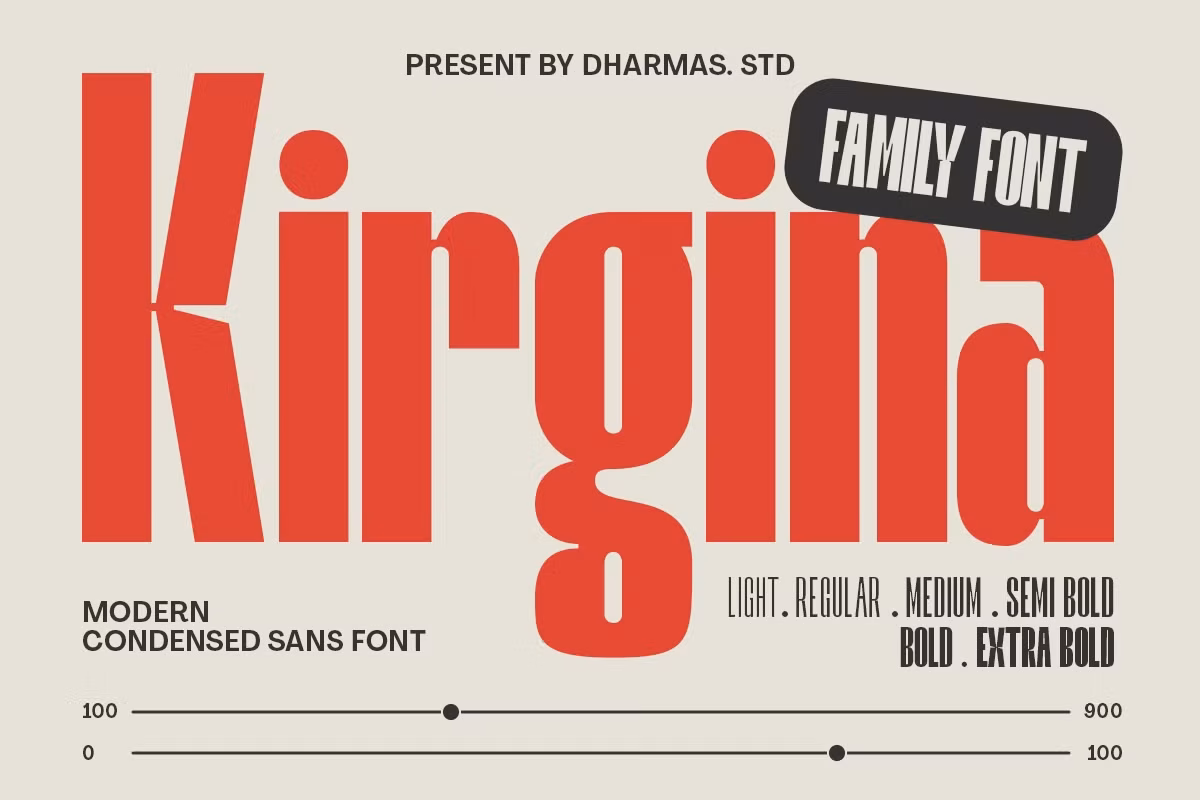
Introduce sharp, sleek style to your designs with Kirgina - 6 Condensed Font Free Download. This condensed font family offers six different weights, providing flexibility and a modern edge for your branding, headlines, logos, posters, and more.
Kirgina features narrow letterforms with clean lines, giving your typography a compact yet bold presence. With six distinct weights, this font allows for experimentation with various typographic treatments and is perfect for high-impact designs. It includes uppercase and lowercase letters, numerals, punctuation, and multilingual support.